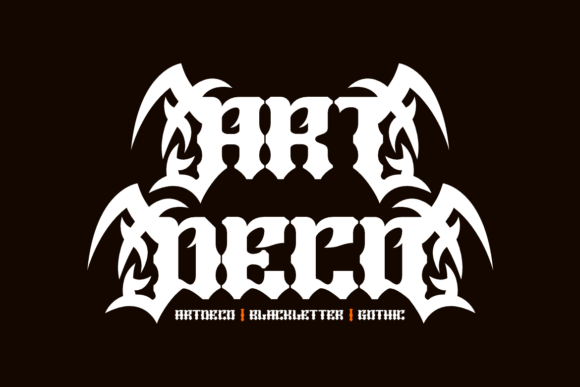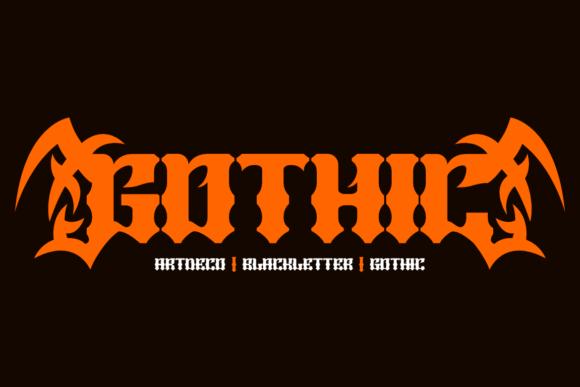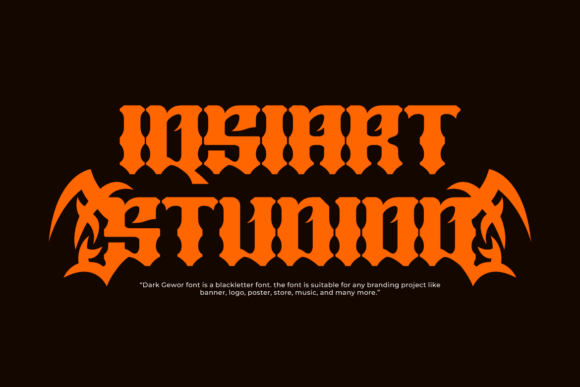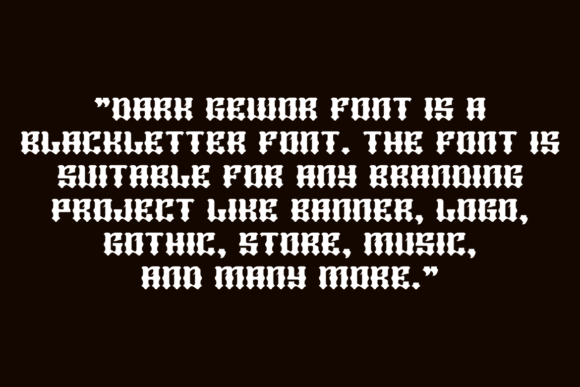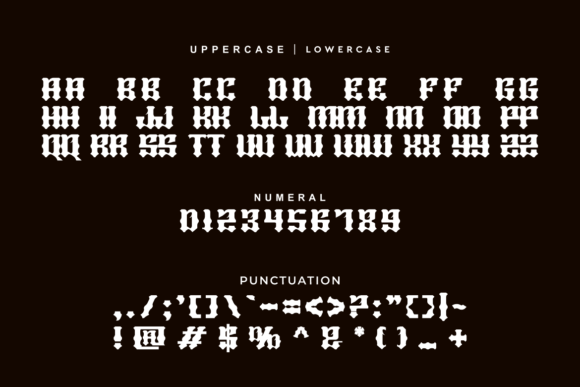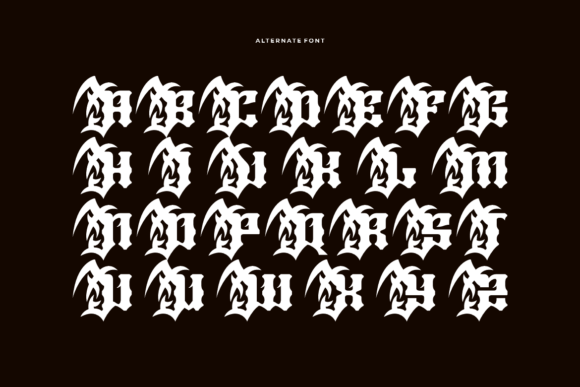
Unleash Your Creativity with Dark Gewor: The Ultimate Blackletter Font
In the world of typography, few fonts command attention like Dark Gewor. This razor-sharp blackletter font is a masterclass in gothic drama, blending medieval edge with a modern twist to create a truly unique visual identity. With its bold, art-deco-inspired structure and spiked flourishes, Dark Gewor is the perfect choice for designers and crafters looking to add an intense, rebellious spirit to their projects.
The Power of Blackletter Typography
Blackletter fonts have a rich history, dating back to the Middle Ages. Characterized by their dramatic flourishes and intricate details, these fonts were originally used for illuminated manuscripts and other formal documents. Today, blackletter typography is often associated with bold, edgy designs that demand attention. Dark Gewor is no exception, with its dense composition and sharp, angular lines creating a sense of power and intensity.
What Makes Dark Gewor Special?
So, what sets Dark Gewor apart from other blackletter fonts? Here are just a few key features that make it a standout:
- Razor-sharp lines: Dark Gewor’s bold, art-deco-inspired structure gives it a sleek, modern feel that’s perfect for designs that need a cutting-edge look.
- Spiked flourishes: The font’s intricate flourishes add a touch of medieval drama, giving every word a sense of power and intensity.
- Medieval edge with a modern twist: Dark Gewor combines the best of both worlds, blending traditional blackletter typography with a modern, edgy aesthetic.
- Dense composition: The font’s dense composition makes every word feel like a power statement, perfect for designs that need to pack a punch.
Perfect for Daring Designs
Dark Gewor is more than just a font – it’s a statement of intent. With its bold, rebellious spirit, it’s perfect for designs that need to stand out from the crowd. Here are just a few ideas for using Dark Gewor:
- Branding: Use Dark Gewor to create a bold, memorable logo that demands attention.
- Band logos: The font’s edgy, rock ‘n’ roll vibe makes it perfect for band logos and music-related designs.
- Extreme sports: Dark Gewor’s intense, rebellious spirit is a natural fit for extreme sports branding and advertising.
- Gaming posters: The font’s bold, dramatic lines make it perfect for gaming posters and other high-energy designs.
Tips for Using Dark Gewor
To get the most out of Dark Gewor, here are a few tips to keep in mind:
- Use it sparingly: Dark Gewor is a bold font, and using it sparingly can help it pack a bigger punch.
- Experiment with colors: The font’s bold lines and intricate details make it perfect for experimenting with different colors and textures.
- Pair it with contrasting fonts: Dark Gewor’s bold, dramatic lines make it a great contrast to simpler, more elegant fonts.
Dark Gewor is more than just a font – it’s a statement of intent. With its bold, rebellious spirit and razor-sharp lines, it’s perfect for designers and crafters looking to add an intense, edgy vibe to their projects. Whether you’re creating a bold logo, a gaming poster, or a band logo, Dark Gewor is the perfect choice. So why settle for a boring, generic font when you can unleash your creativity with Dark Gewor?